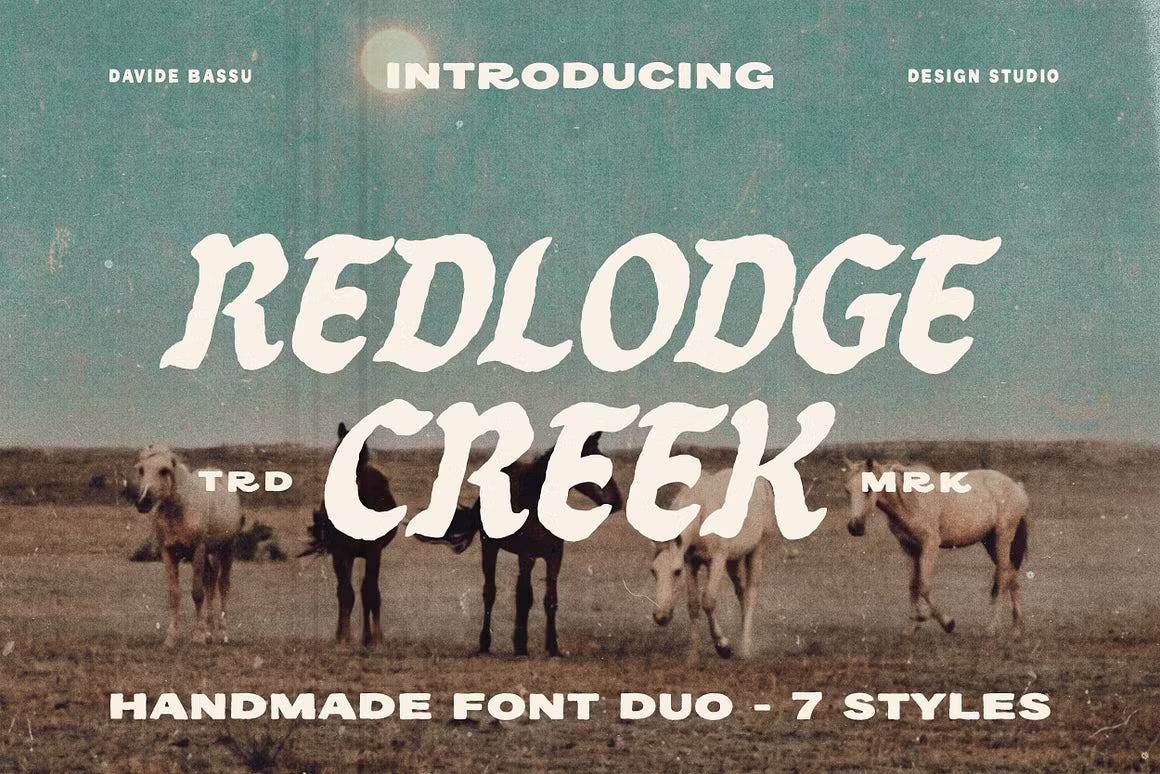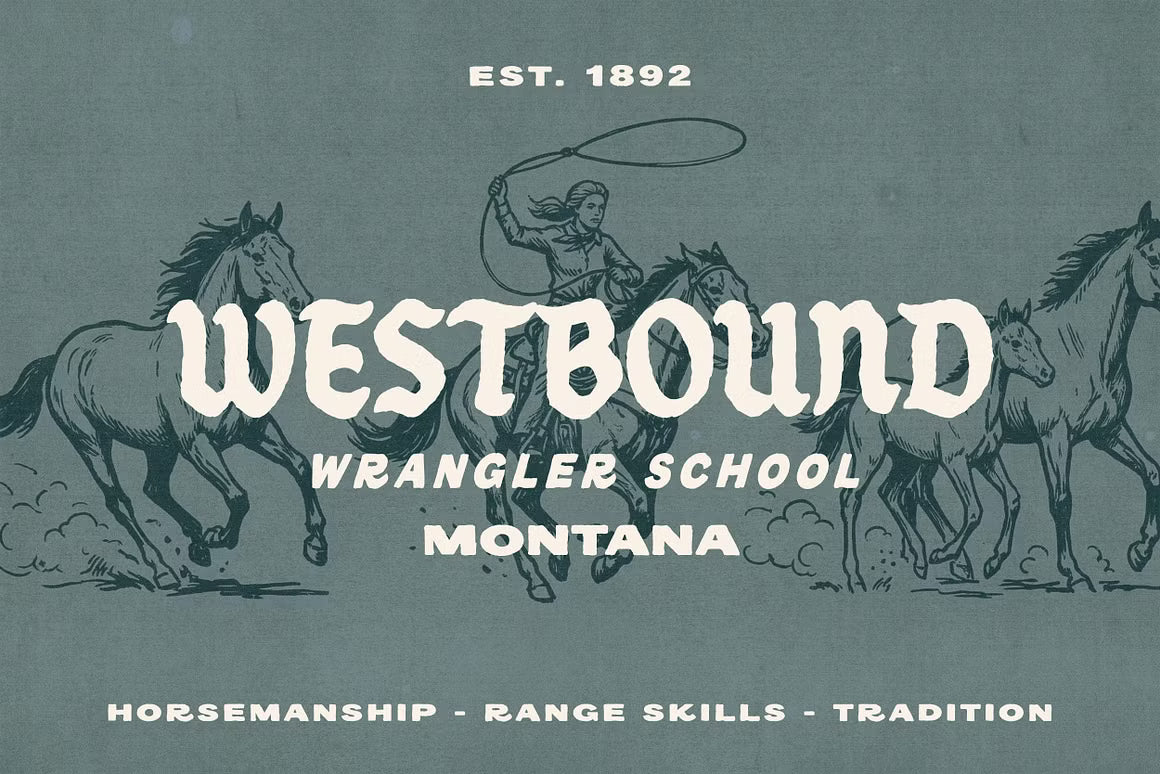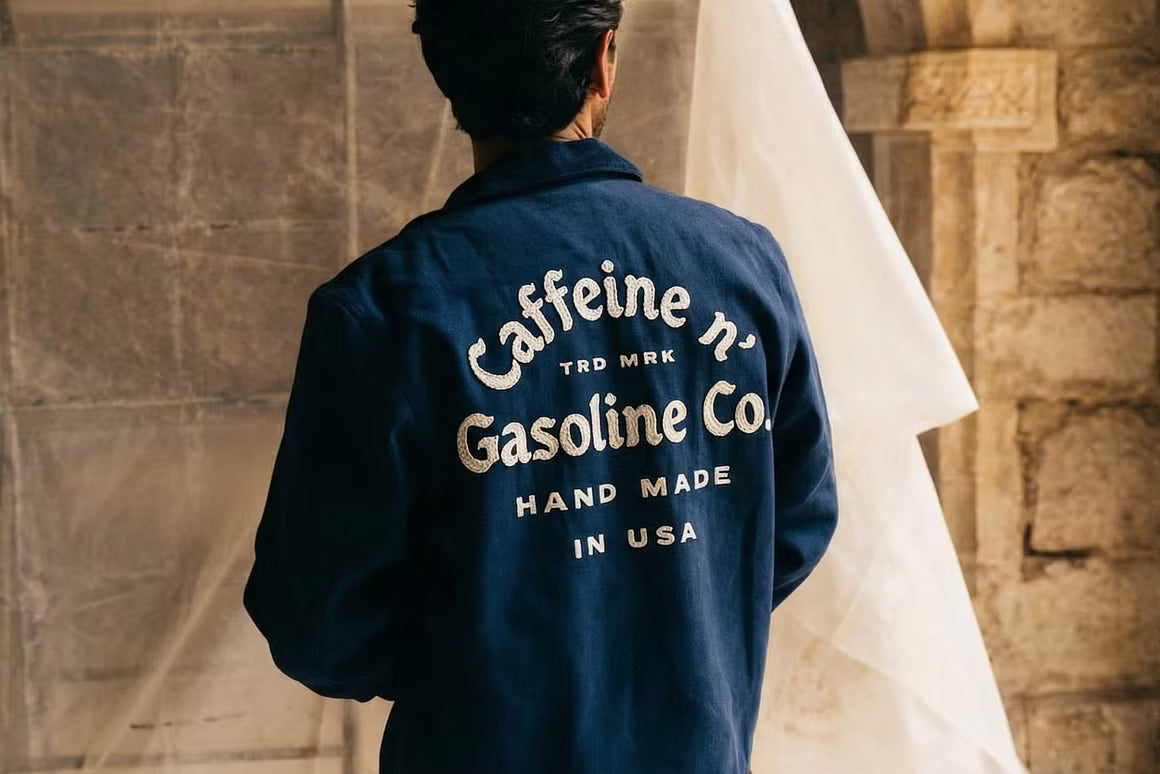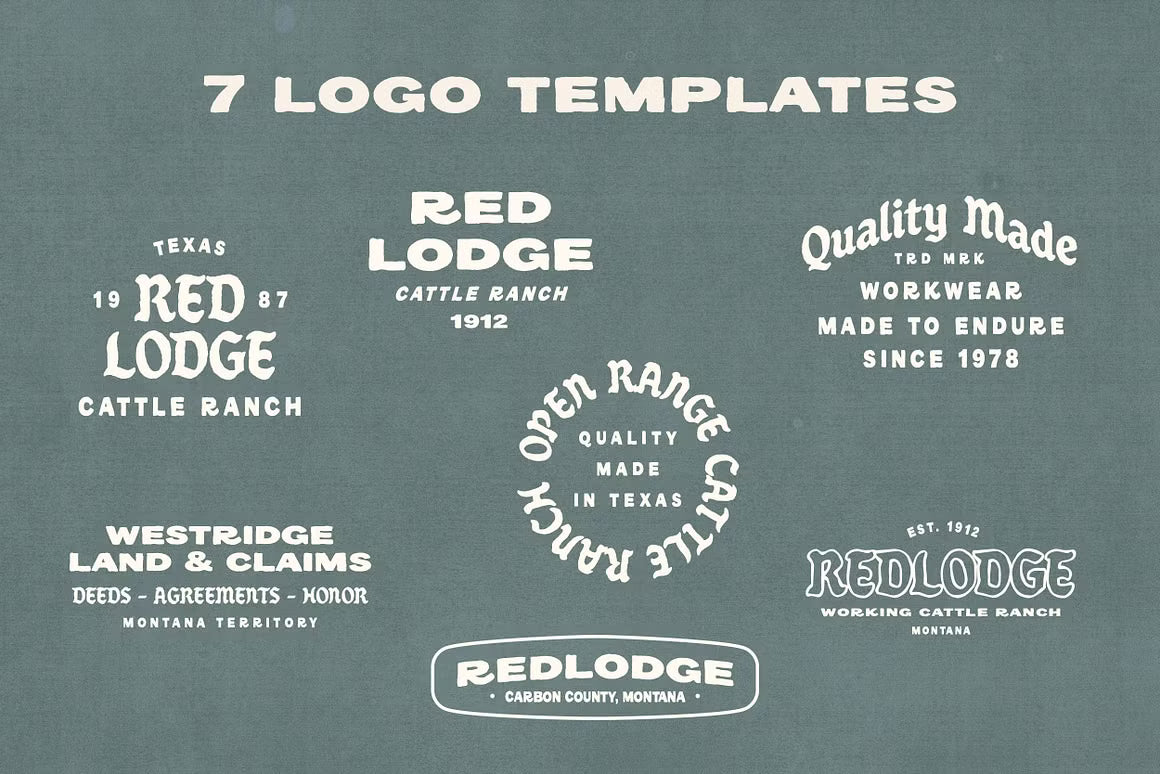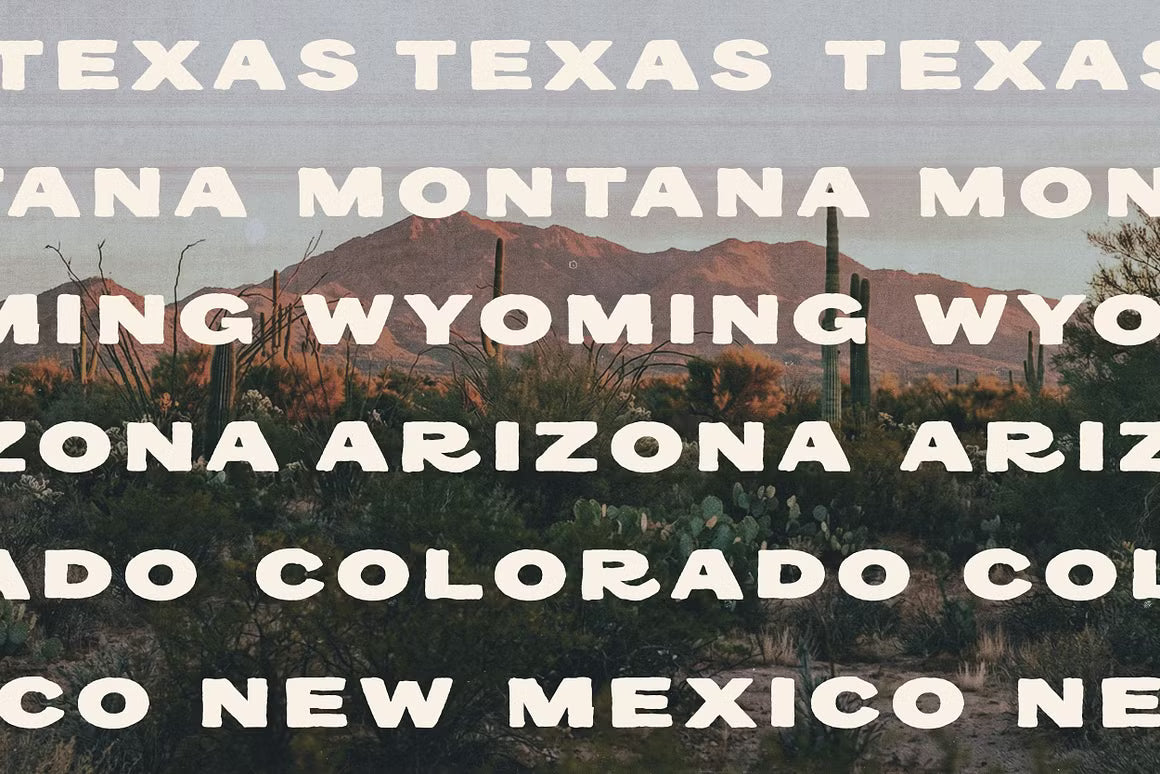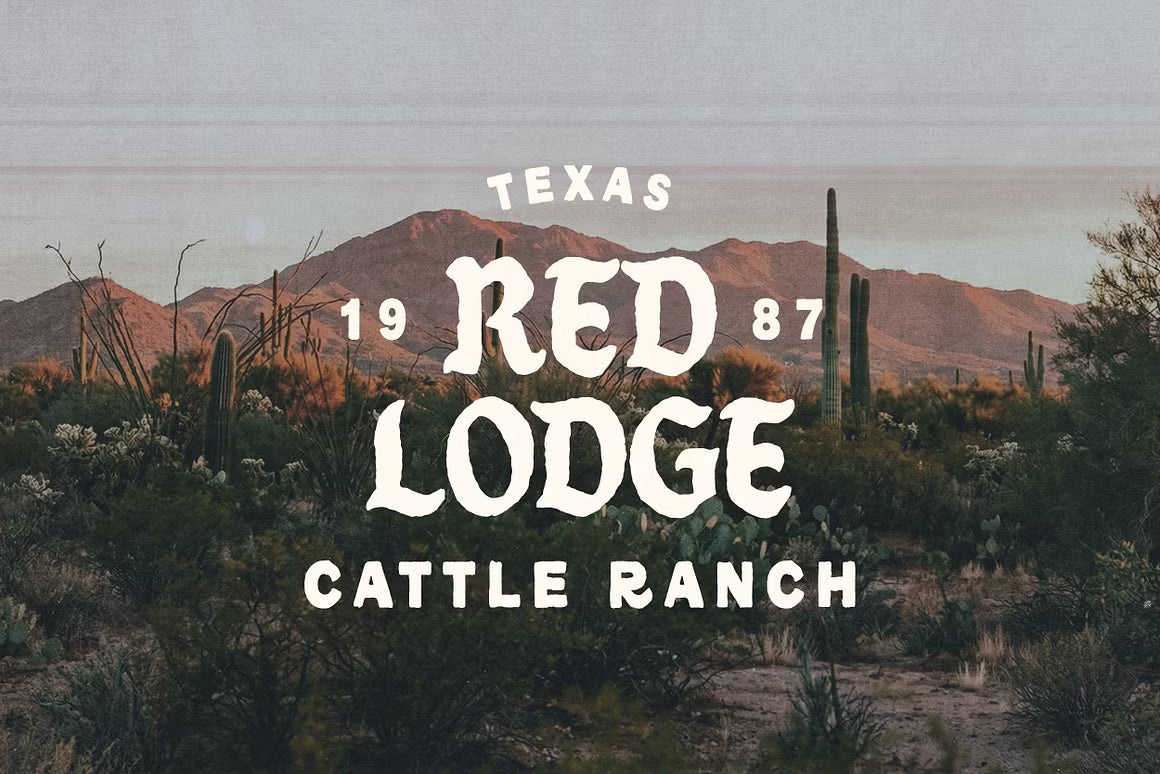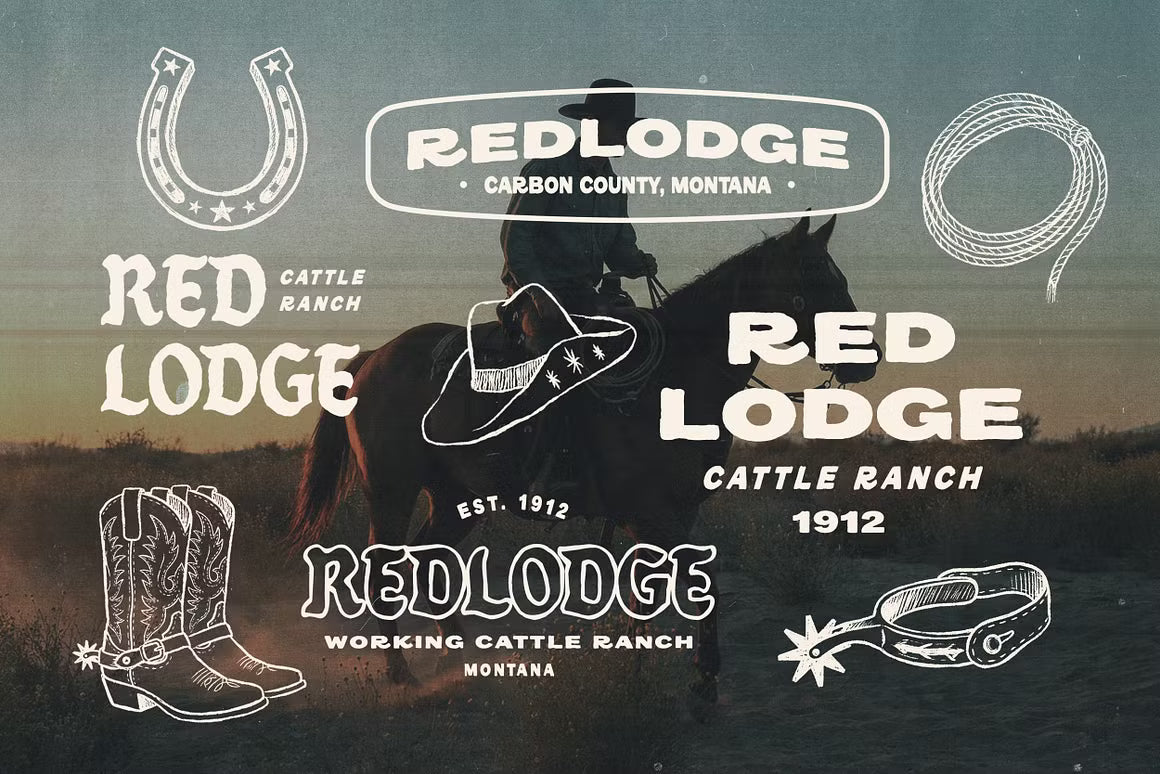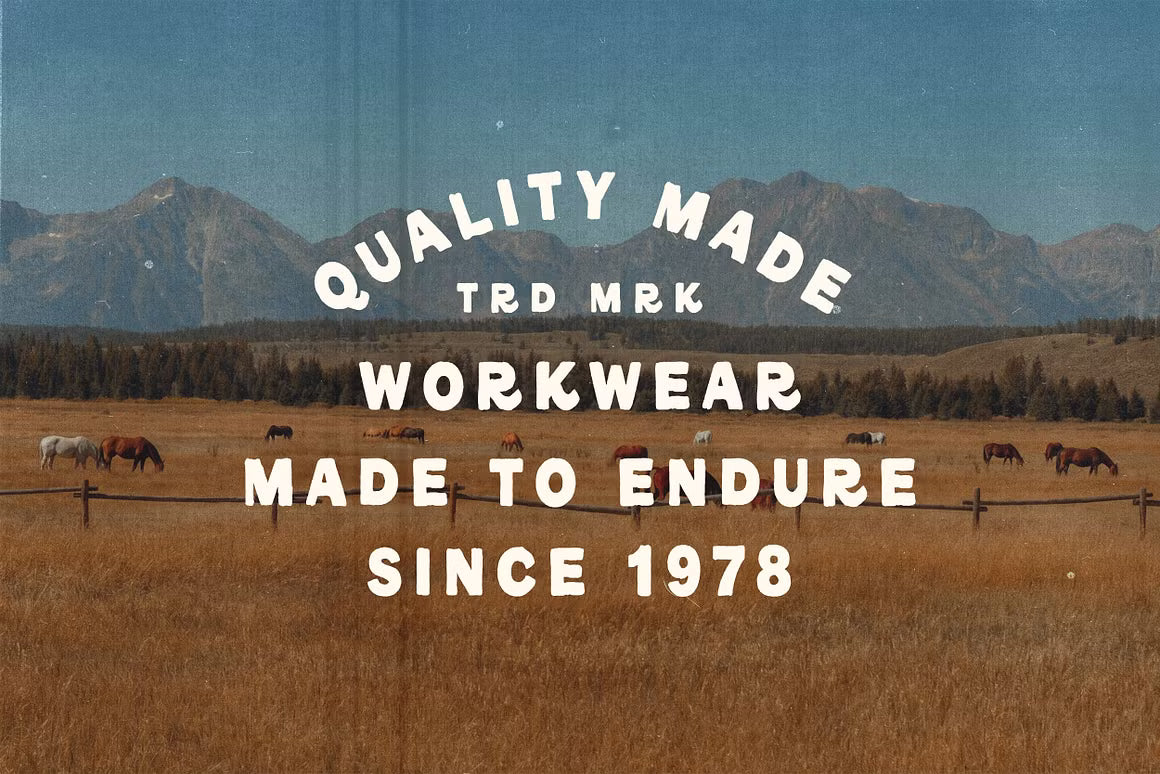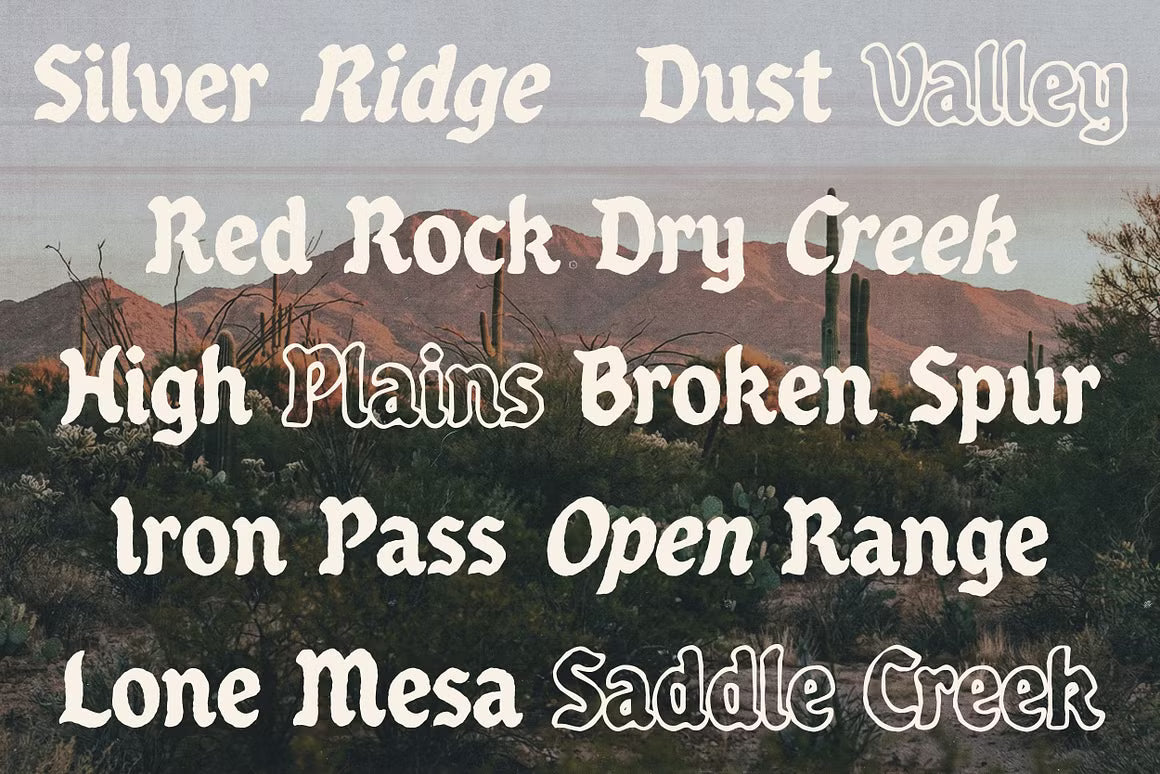
Redlodge Font Duo + Extra captures the essence of American ranch life and workwear heritage with a strong vintage serif paired with a versatile handmade sans. The fonts feel bold yet approachable, with that organic, hand-drawn quality that gives designs real depth and personality.
This duo is built for practical use in logos, apparel graphics, packaging, signage, and editorial work, while the included 7 logo templates and 15 Western-themed illustrations make it easy to create complete, cohesive looks right away.
If you're going for authentic, rugged Western charm with modern usability, Redlodge delivers it naturally and effectively.
REDLODGE FONT DUO + Extra